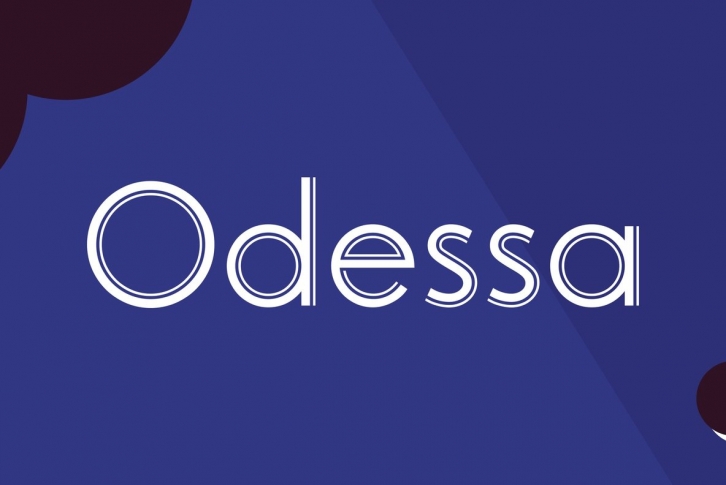
An impressive, refined sans serif style based on the compass and ruler design of the Futura family. The fine-line casing emphasizes its clean, precisely proportioned features. Odessa looks best with wide letter spacing, and is particularly effective where an upscale, fashion look is desired. Created by Peter O'Donnell, a master type designer, in the Type Studio.